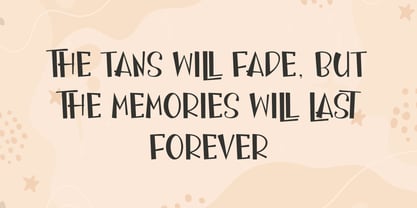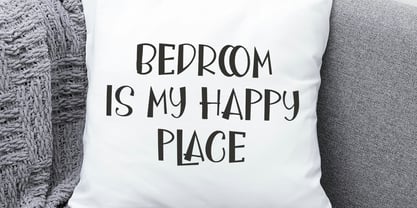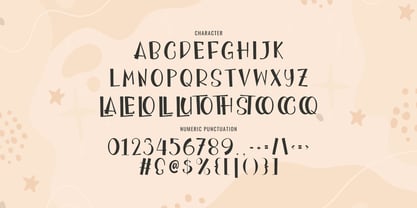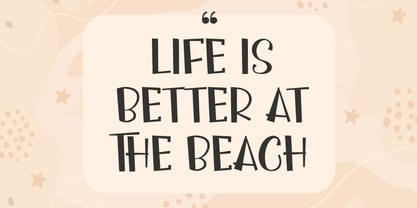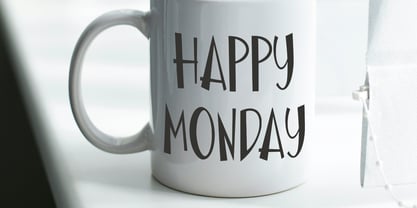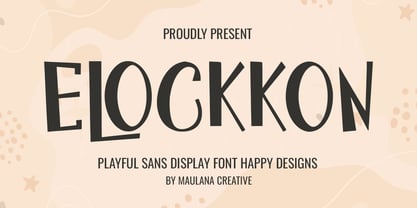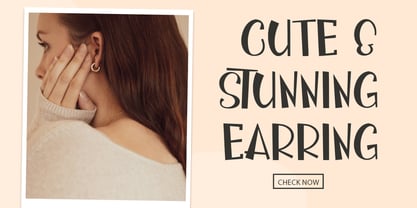
MC Elockkon
by Maulana Creative
The MC Elockkon Font Family was designed by Gilang Maulana and published by Maulana Creative. MC Elockkon contains 1 styles. More about this family
Say goodbye to boring typography and hello to Elockkon, a wonderfully playful and unique sans-serif display font designed to inject joy and personality into all your creative projects! Elockkon features bold, eye-catching shapes with an irregular, hand-drawn look that instantly grabs attention. It's perfect for conveying a sense of fun, friendliness, and authenticity. Perfect For: - Merchandise & Prints: Mugs, T-shirts, tote bags, and personalized gifts. - Home Decor & Crafts: Wall art, vinyl decals, pillow covers, and sublimation projects. - Quotes & Social Media: Creating viral, shareable content, motivational quotes, or fun holiday posts. - Branding & Logos: Especially for brands targeting children, lifestyle, beach, or casual consumer goods. - Packaging & Advertisements: Adding a fresh, memorable, and energetic touch.
Designers: Gilang Maulana
Foundry: Maulana Creative